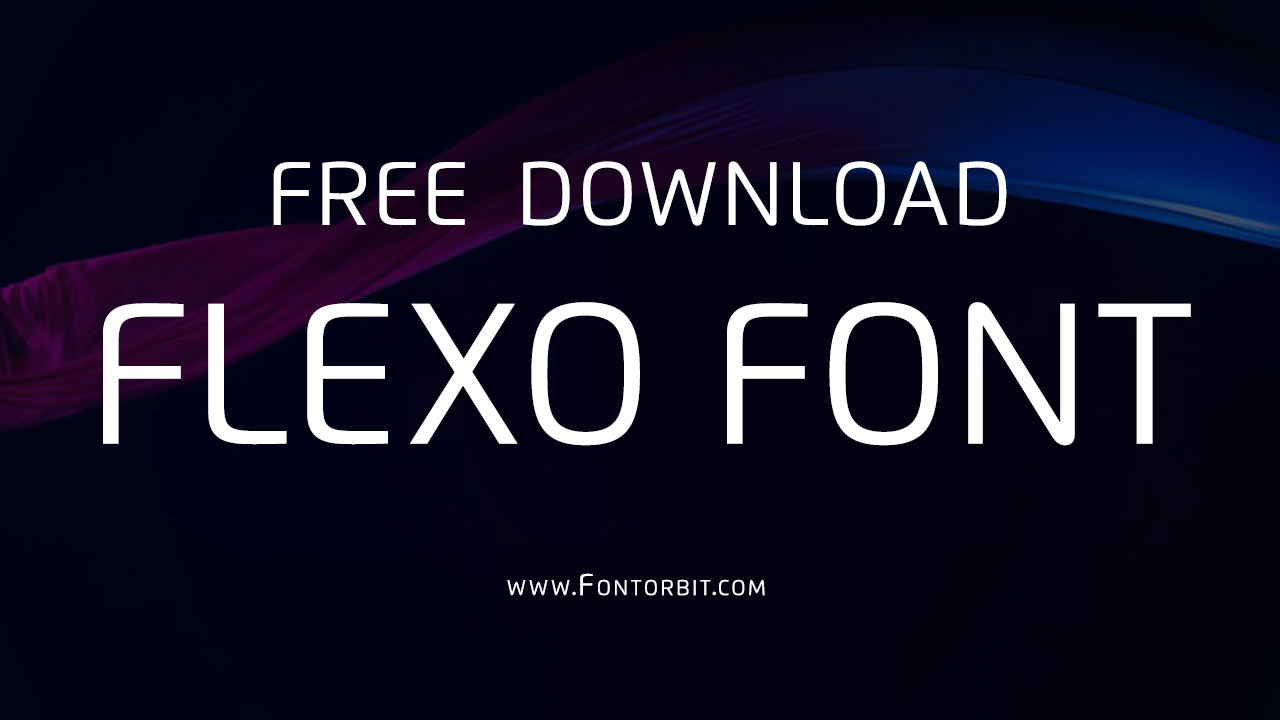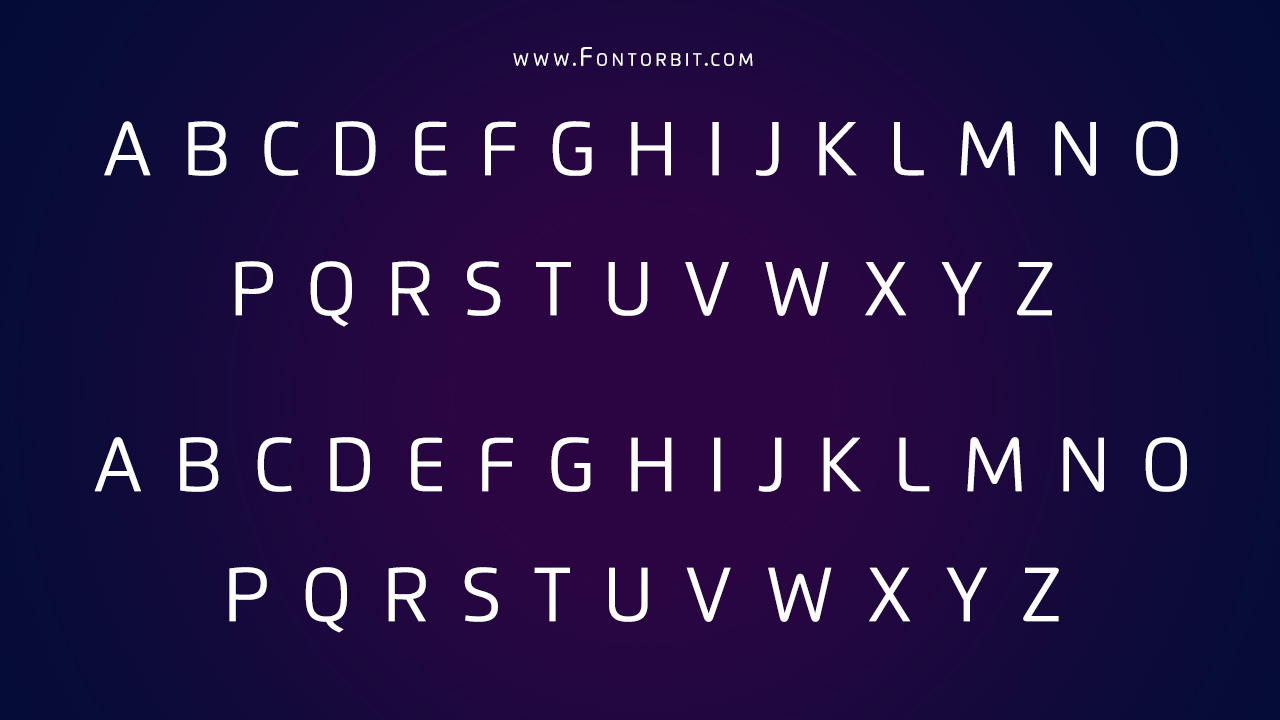
The Flexo Font, designed by Ben Blom and published by Durotype, is a sophisticated geometric sans-serif typeface known for its balanced blend of mathematical precision and humanistic warmth.
Featuring a distinctive squarish design, Flexo Font combines geometric clarity with a touch of humanistic refinement, making it a versatile choice for various applications.
The Flexo Font Family
This versatile typeface is suitable for both headlines and body text. Its geometric style with humanistic warmth makes it perfect for graphic design, corporate identity, and any project requiring a refined yet modern touch. Flexo Regular offers clean lines and a well-balanced appearance, enhancing readability and visual appeal.
Flexo Font excels in creating clean, professional designs with a touch of warmth. Its distinctive squarish design and extensive style options make it ideal for projects requiring both clarity and sophistication, whether for print or digital use.
Flexo Font’s geometric and humanistic design makes it an excellent choice for a variety of design needs. Its modern yet warm appearance ensures it stands out and adds a distinctive flair to both prominent and subtle applications.
Use Flexo Font for clean and modern designs, including graphic and corporate identity projects. Its balanced and versatile style is suitable for both prominent headlines and detailed text, enhancing the overall visual impact of your designs.
1.What Is The Flexo Font?
Flexo Font is a geometric sans-serif typeface designed by Ben Blom, featuring a squarish design that blends geometric precision with humanistic warmth. It’s ideal for both display and text applications, providing a versatile and sophisticated appearance.
2.How To Choose The Right Size For Flexo Font?
Use Flexo Font in both large and small sizes to take advantage of its clarity and distinctive design. It works well for headlines, body text, and any design elements where a balanced, modern look is desired.
3.What Are The Key Features Of The Flexo Font?
Flexo Font features a geometric design with humanistic elements, including a squarish appearance that combines mathematical straightforwardness with refined aesthetics. It offers extensive language support and sophisticated OpenType features.
4.What Are The International Language Support Options For The Flexo Font?
Flexo Font supports a wide range of languages, making it ideal for international use. It includes extensive language support and various OpenType features, ensuring versatility in global design projects.